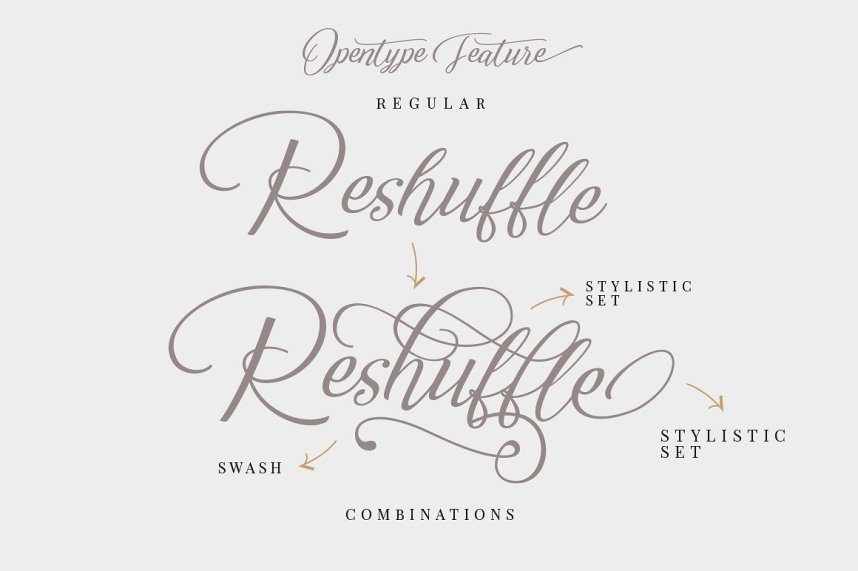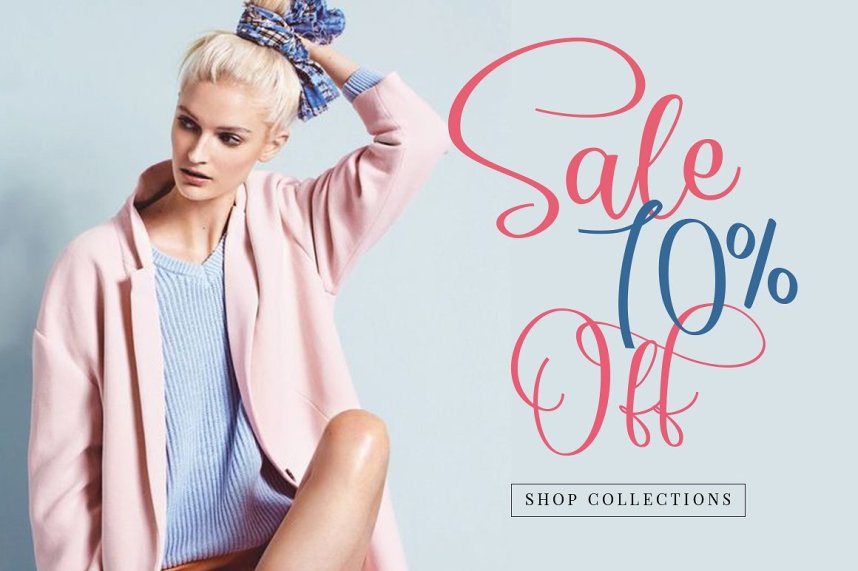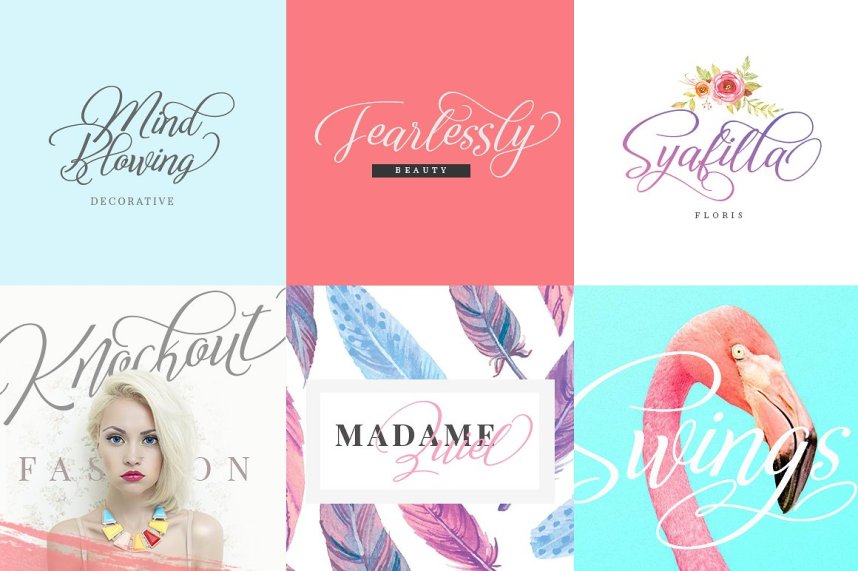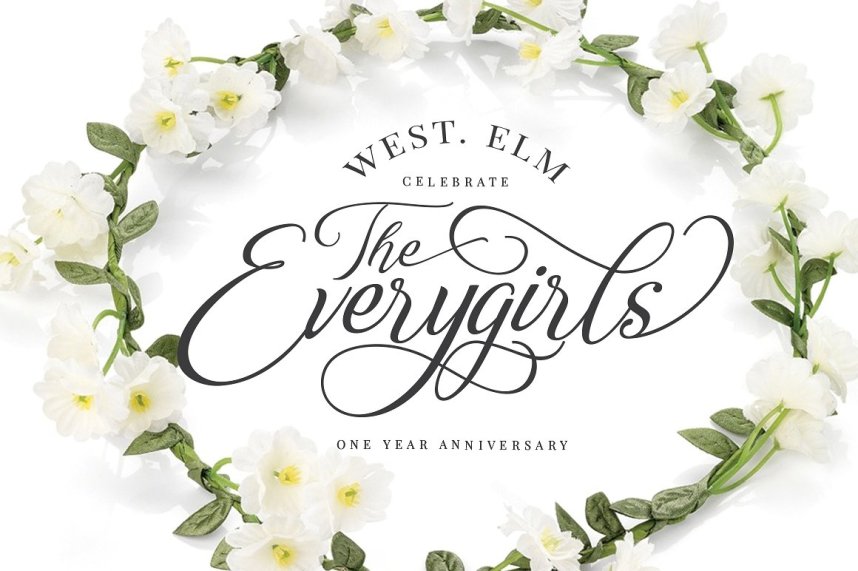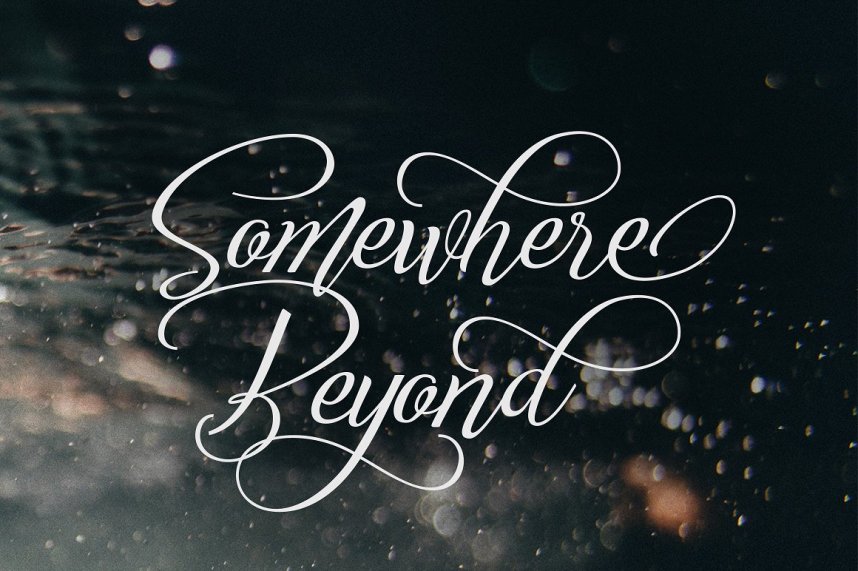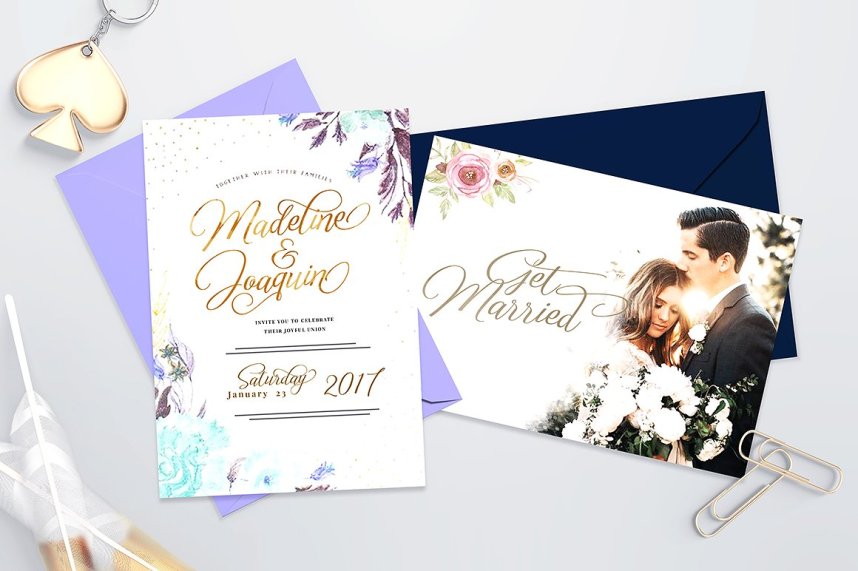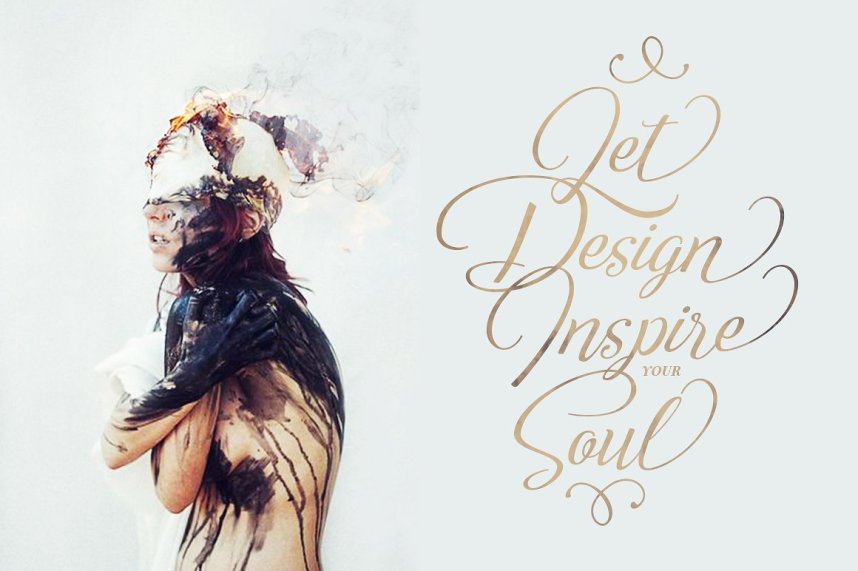
Reshuffle Script Font
Reshuffle Script Free Demo Font
Introducing the new script font. Reshuffle Script Font designed and shared by Dirtyline Studio. Reshuffle – a new fresh & modern script with a calligraphy style, decorative characters and a dancing baseline! So beautiful on invitation like greeting cards, branding materials, business cards, quotes, posters, and more!